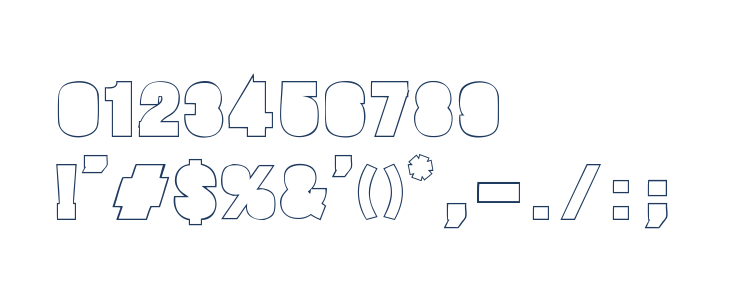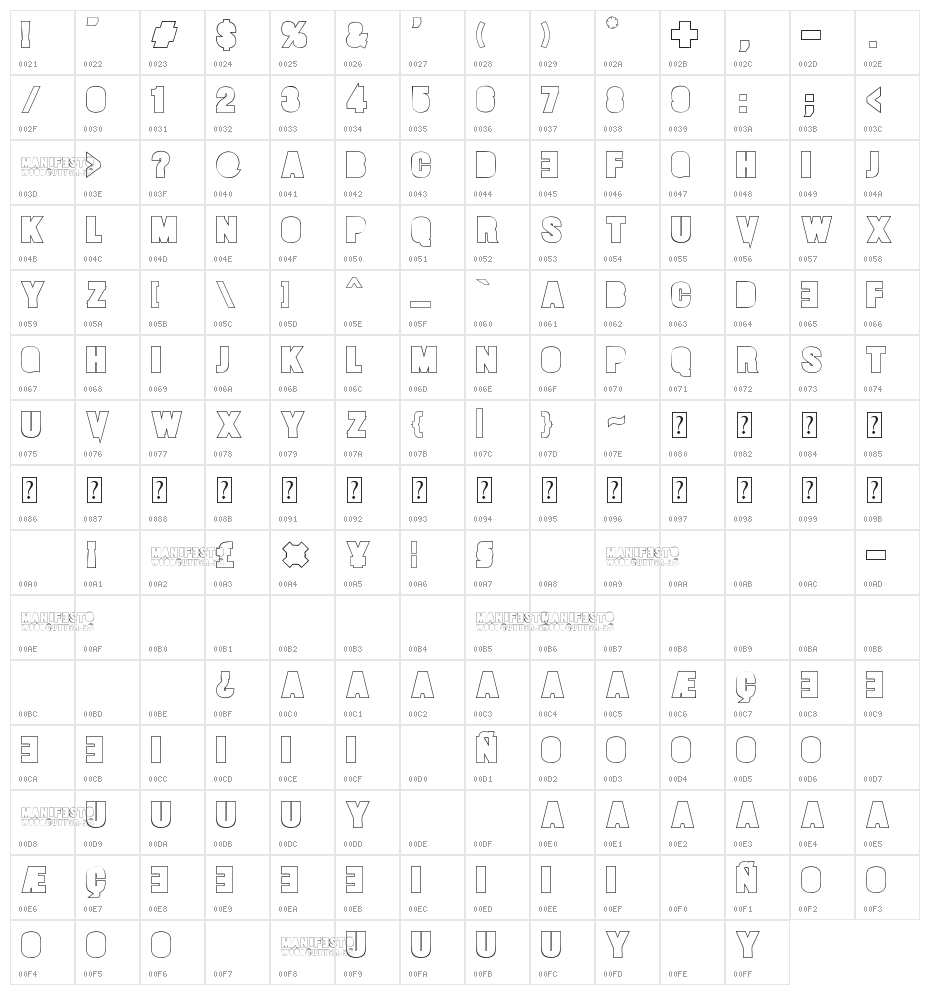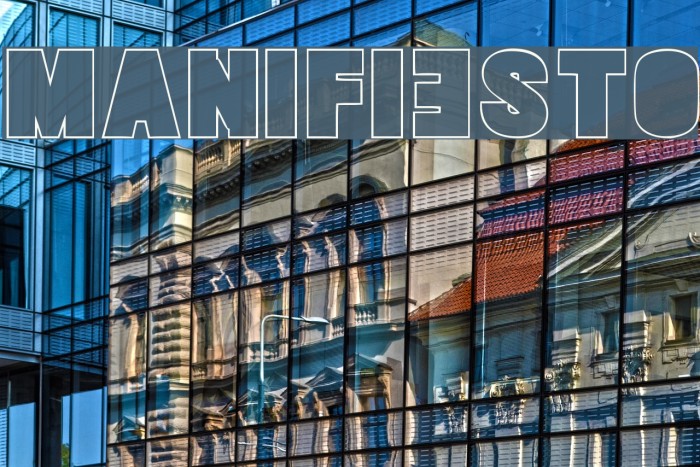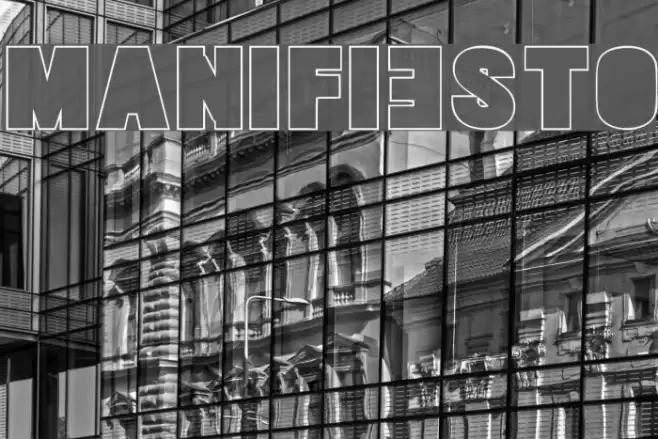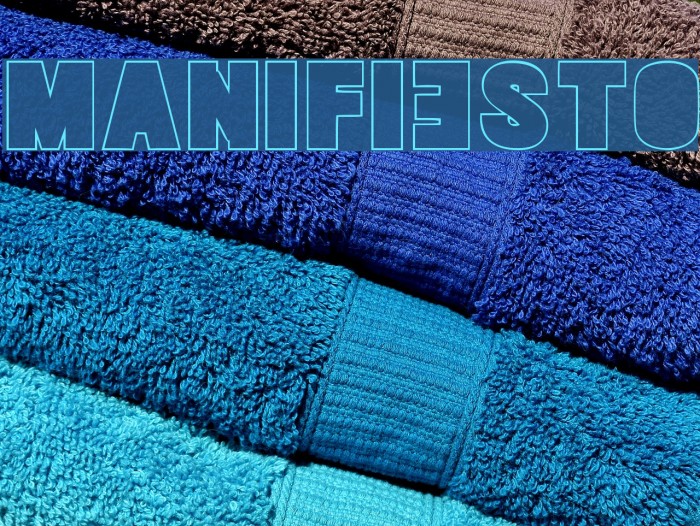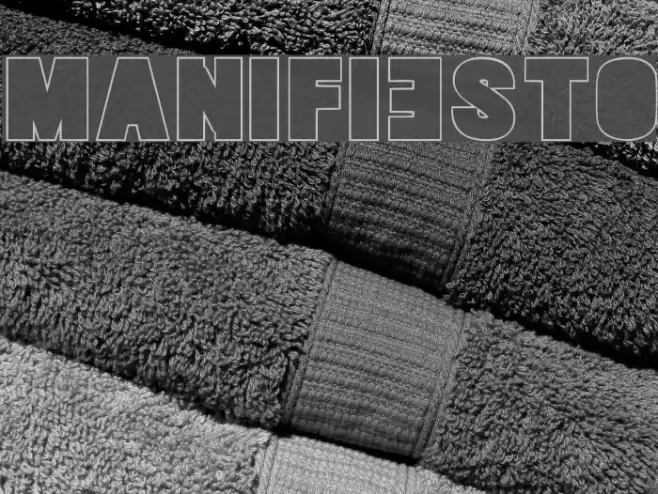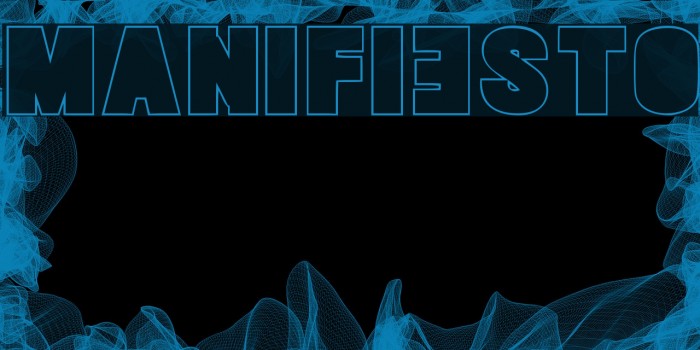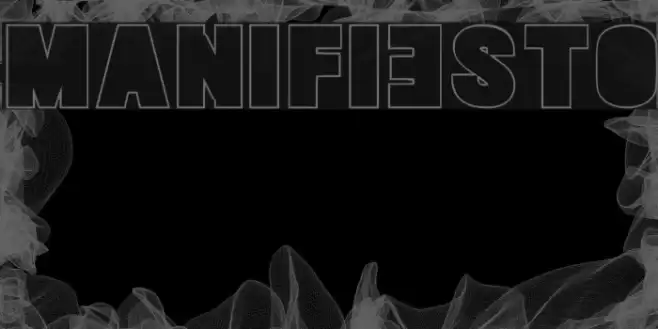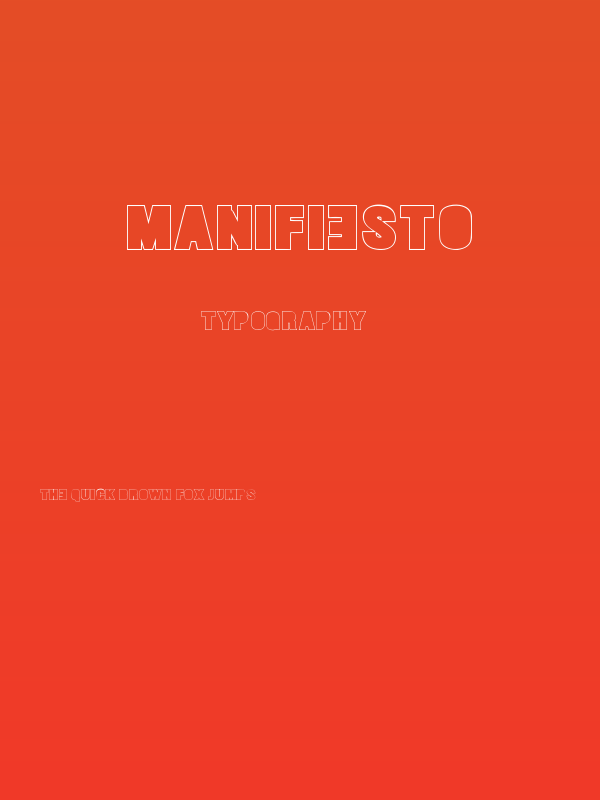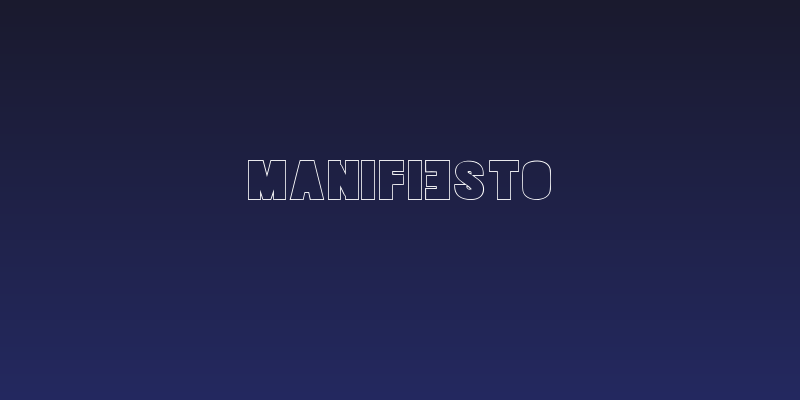
MANIFIESTO Font
MANIFIESTO Description
This font features a bold and striking design with a unique geometric style. Each character is outlined, giving it a hollow appearance that adds depth and dimension. The uppercase letters are particularly eye-catching, with some characters incorporating sharp angles and others featuring rounded elements. The numbers and special characters maintain the same bold outline, ensuring consistency across all glyphs. This font's distinct style makes it ideal for projects that require a strong visual impact.
| Proposed Projects | Ideal for posters, logos, headlines, and any design needing a bold statement. |